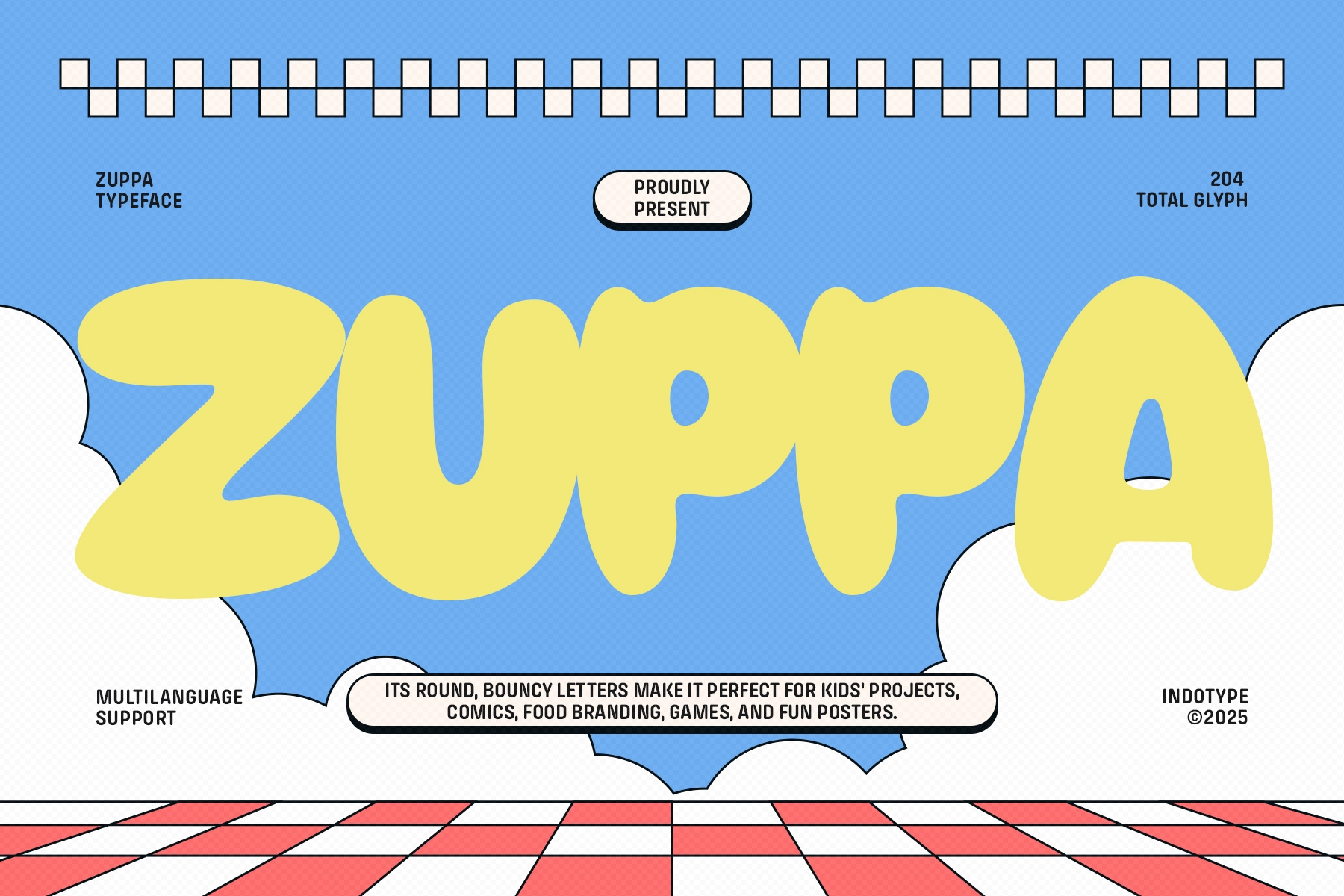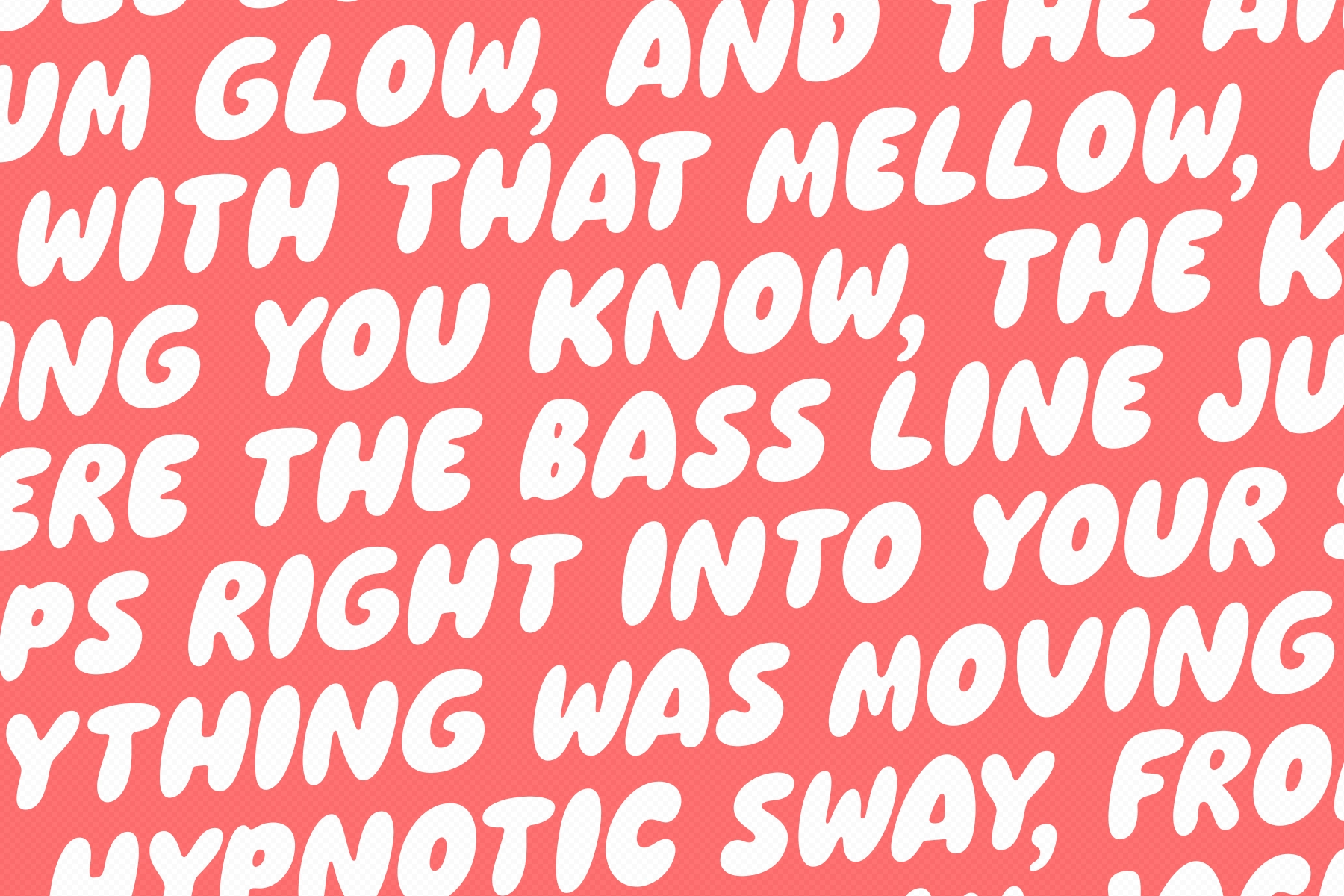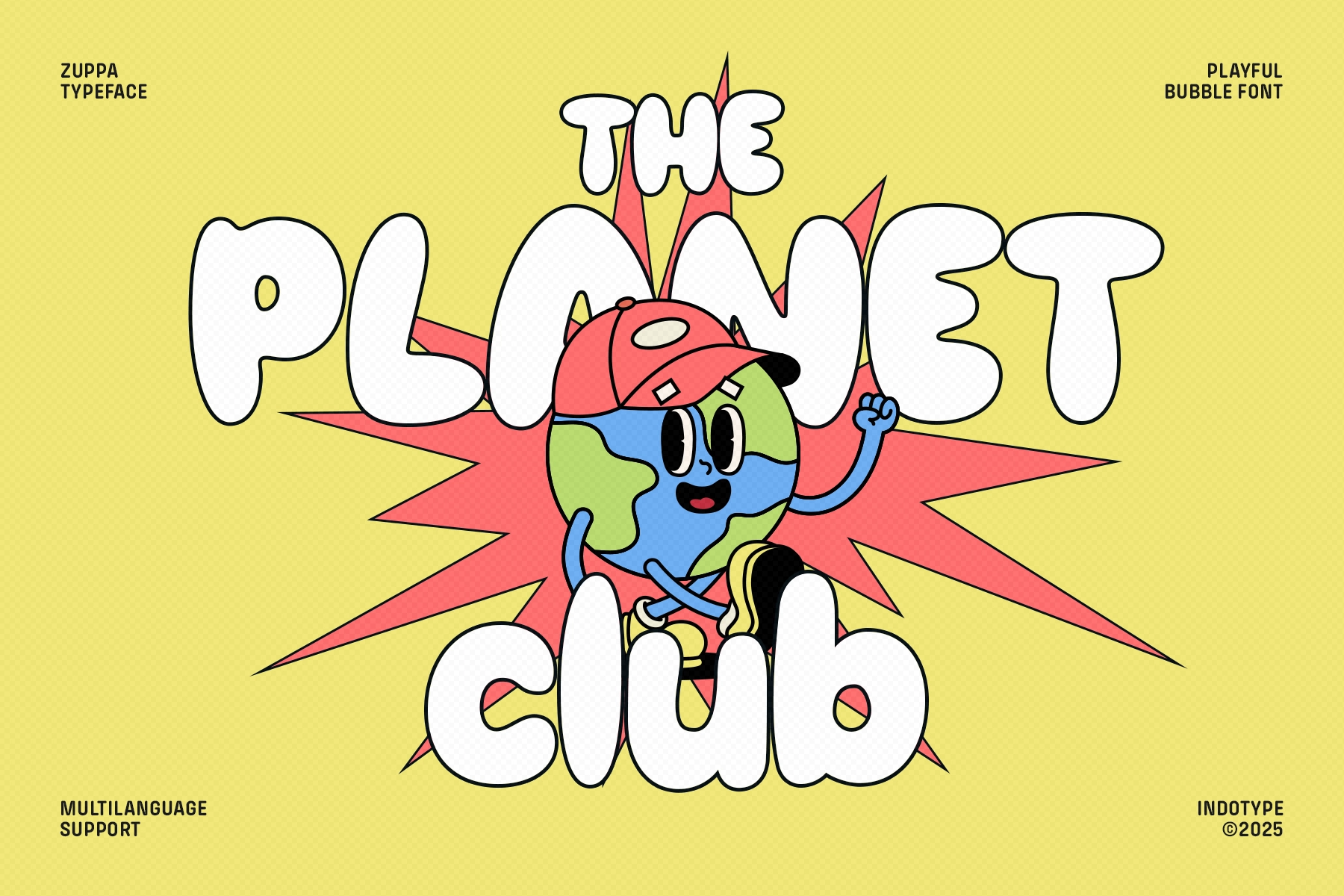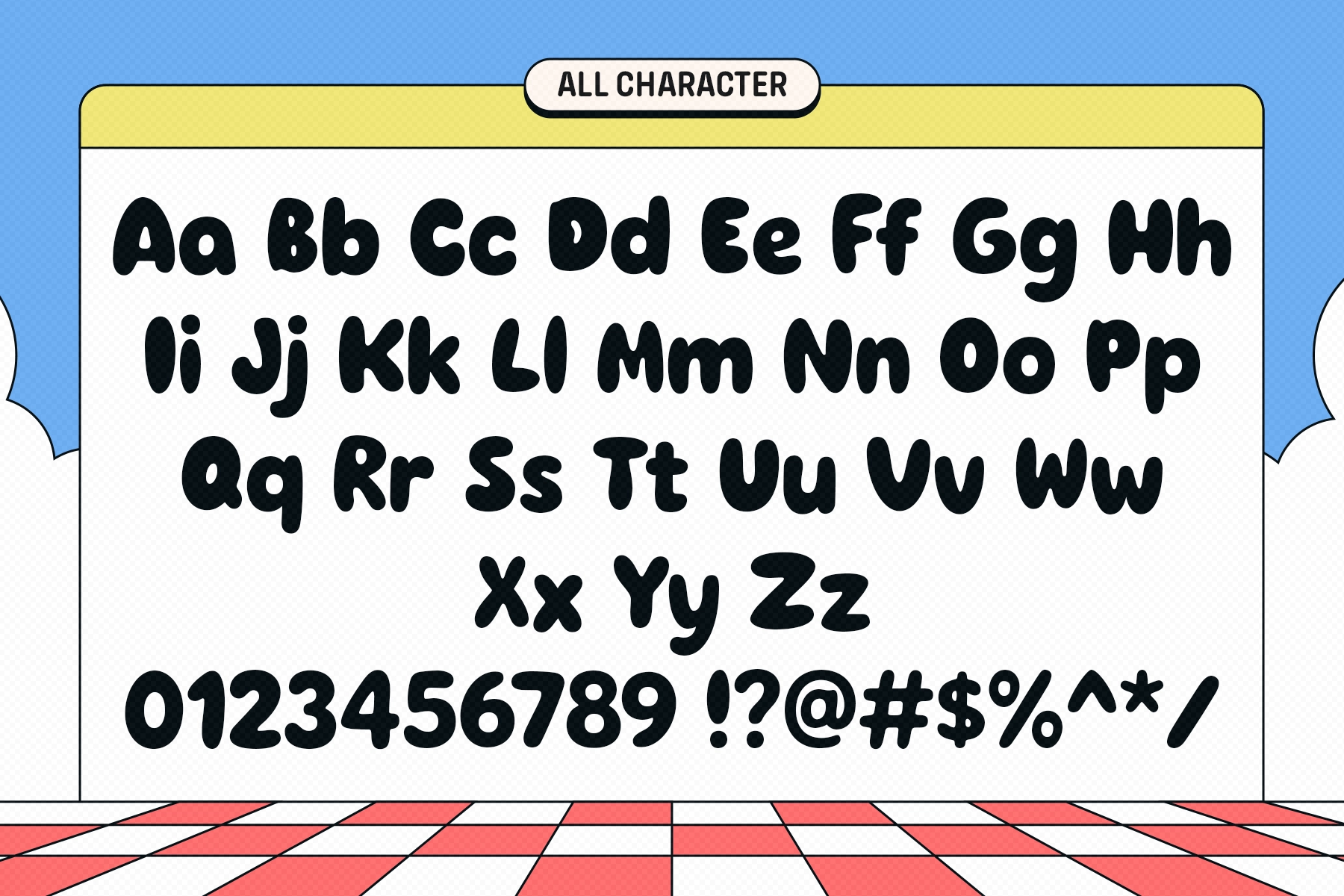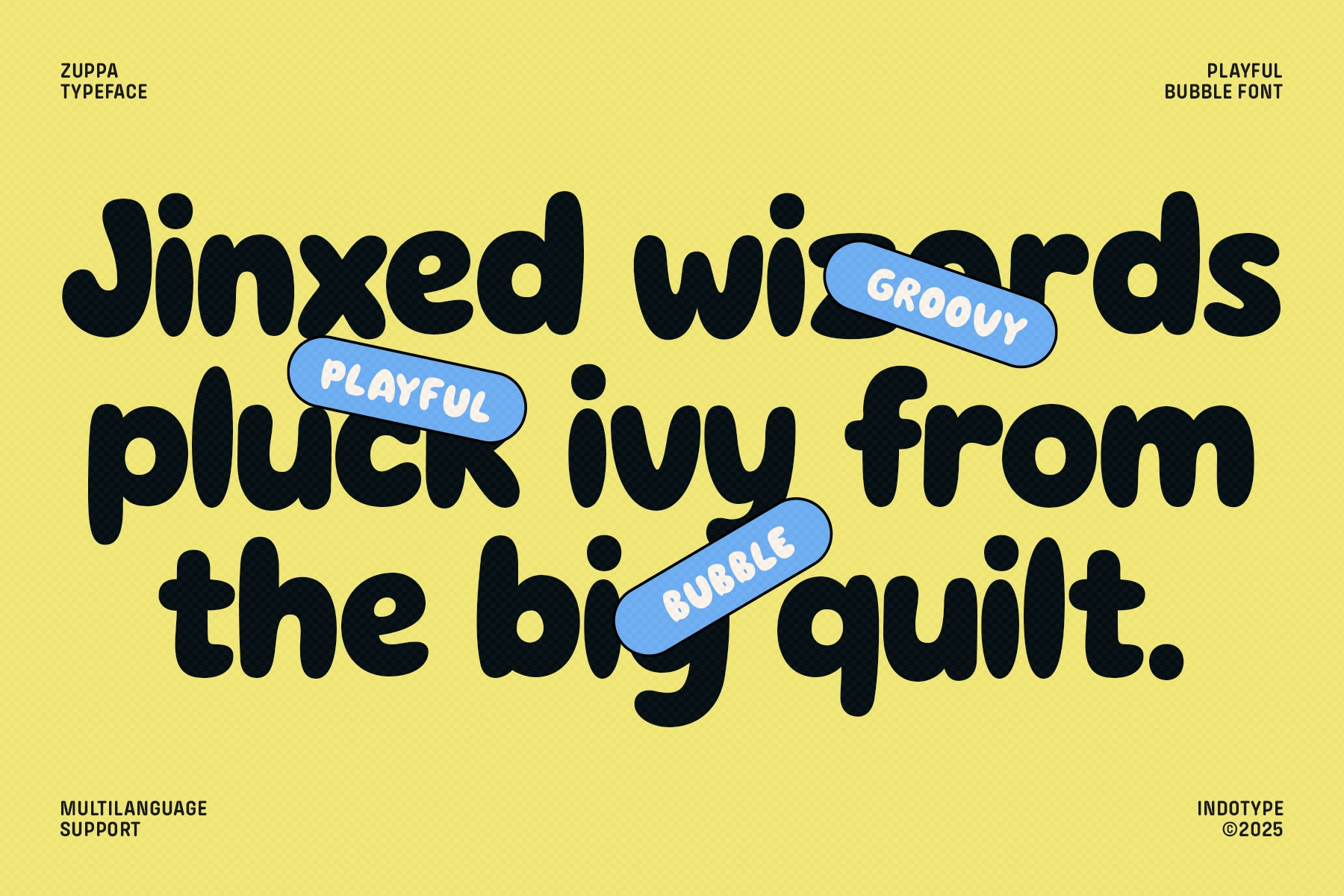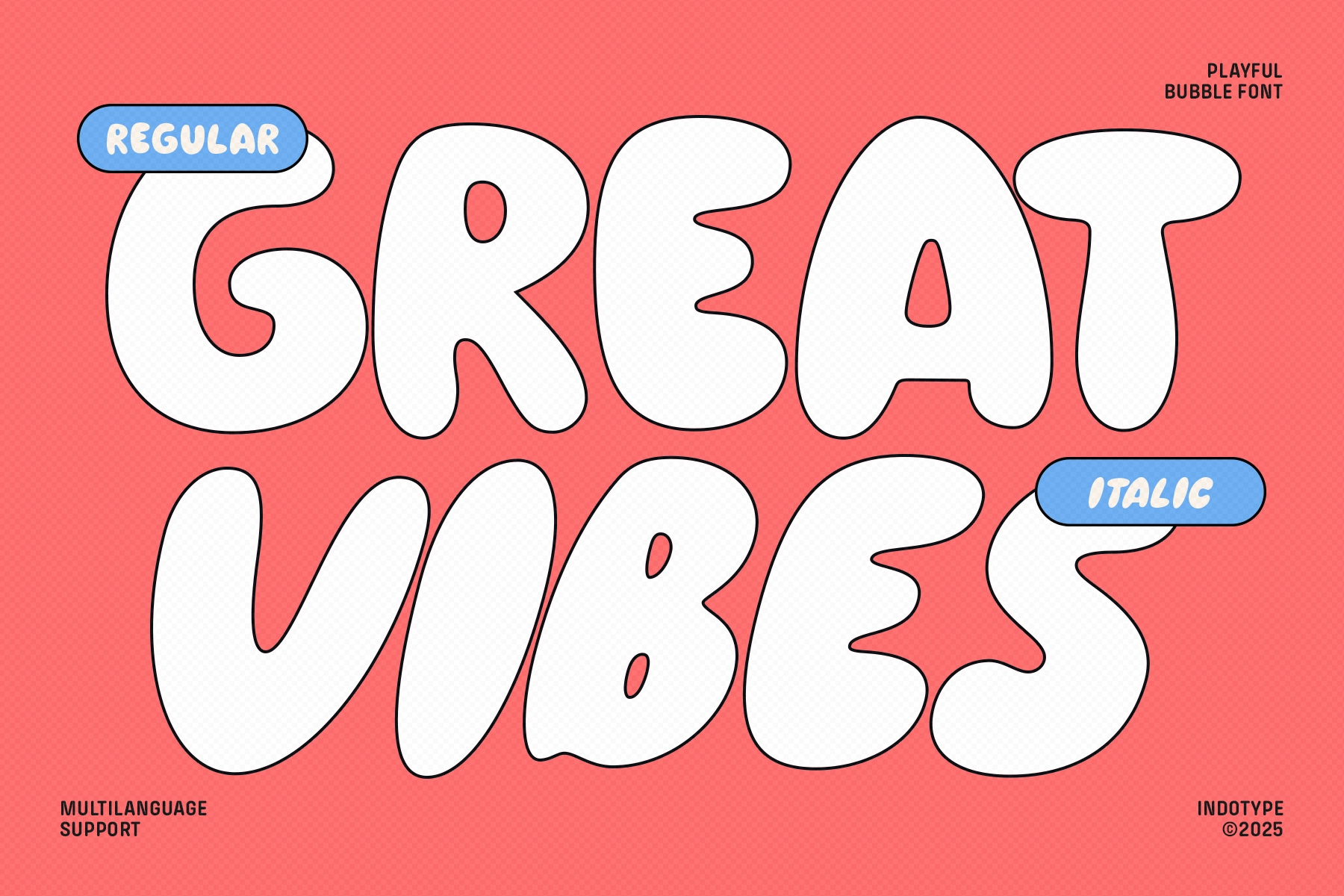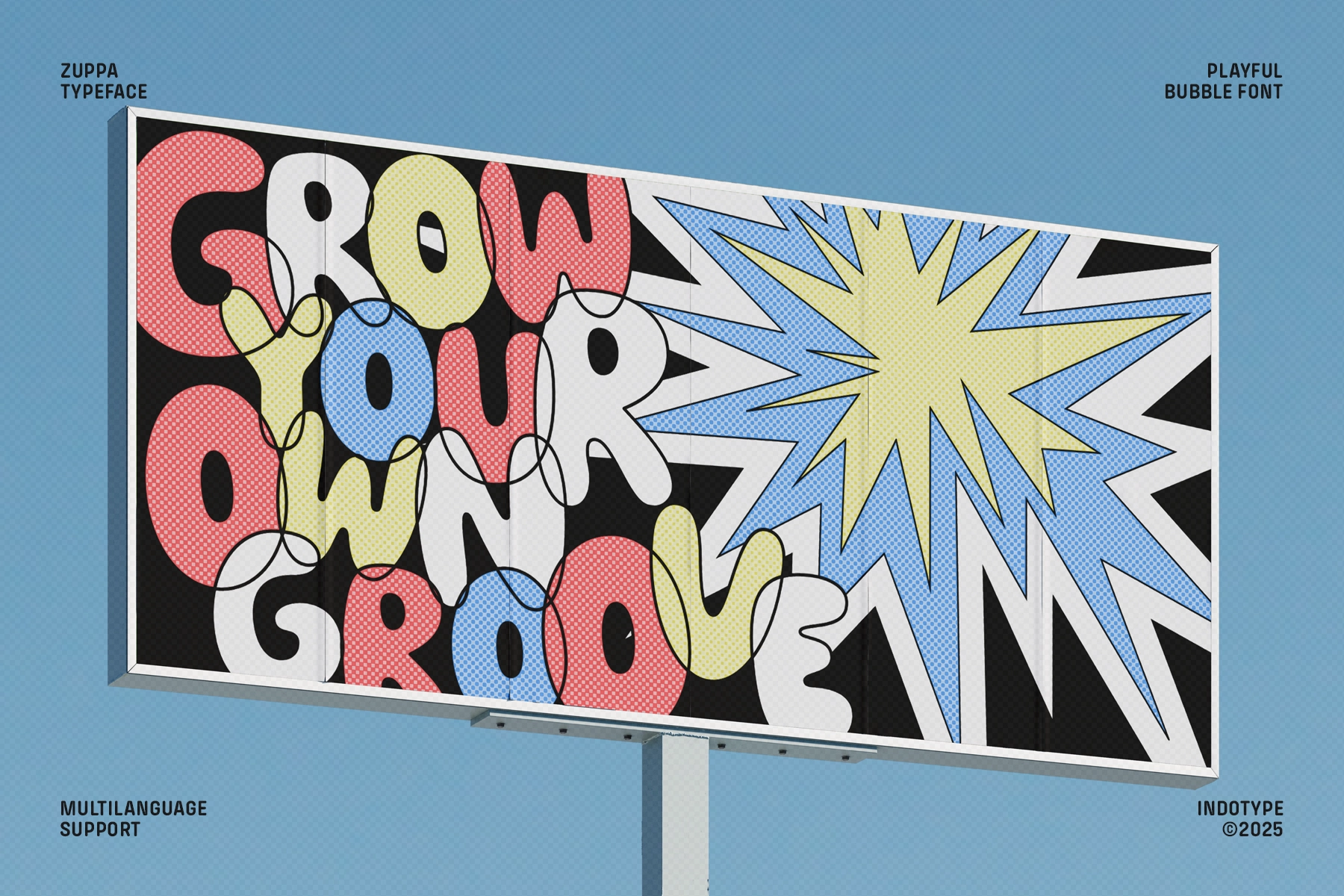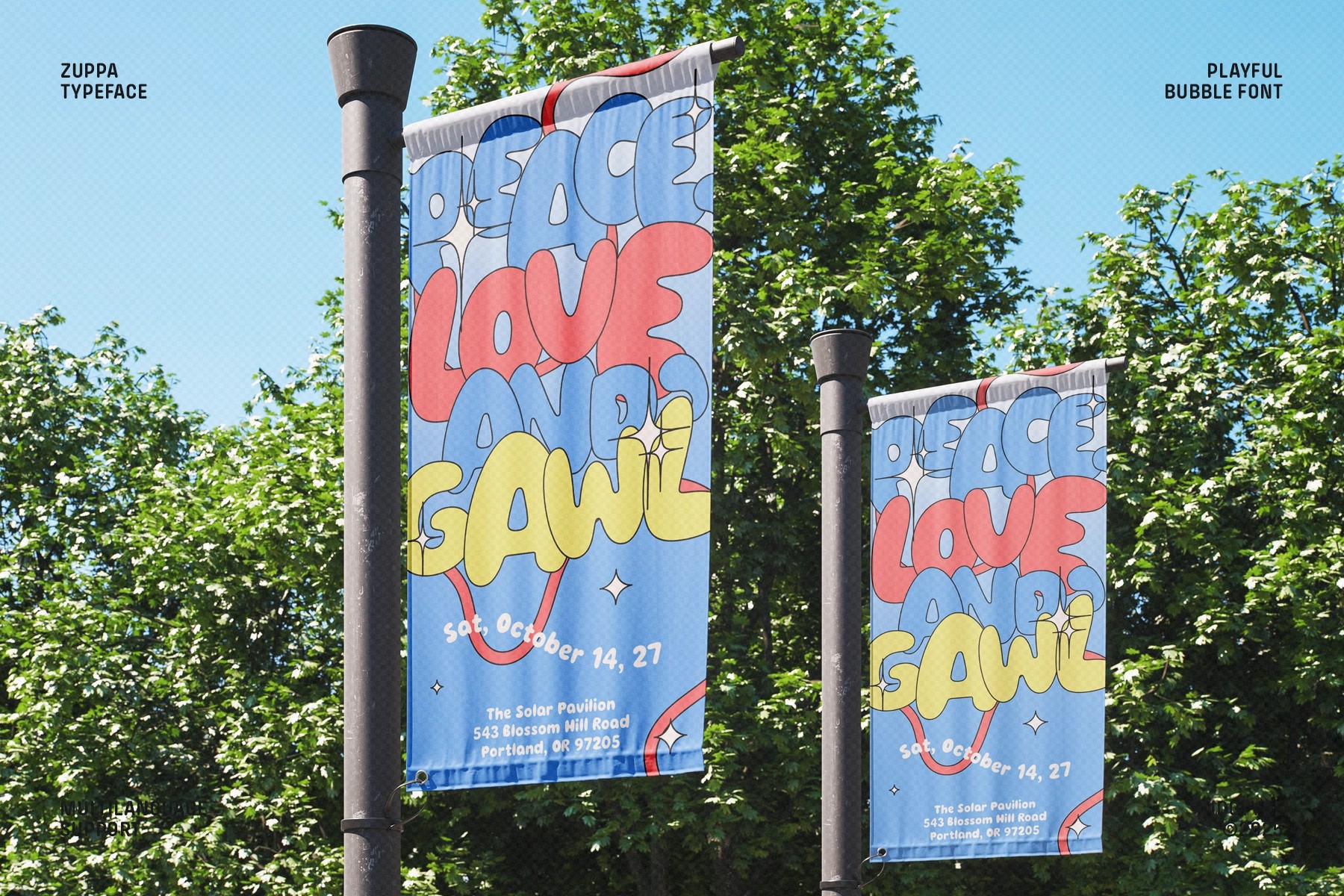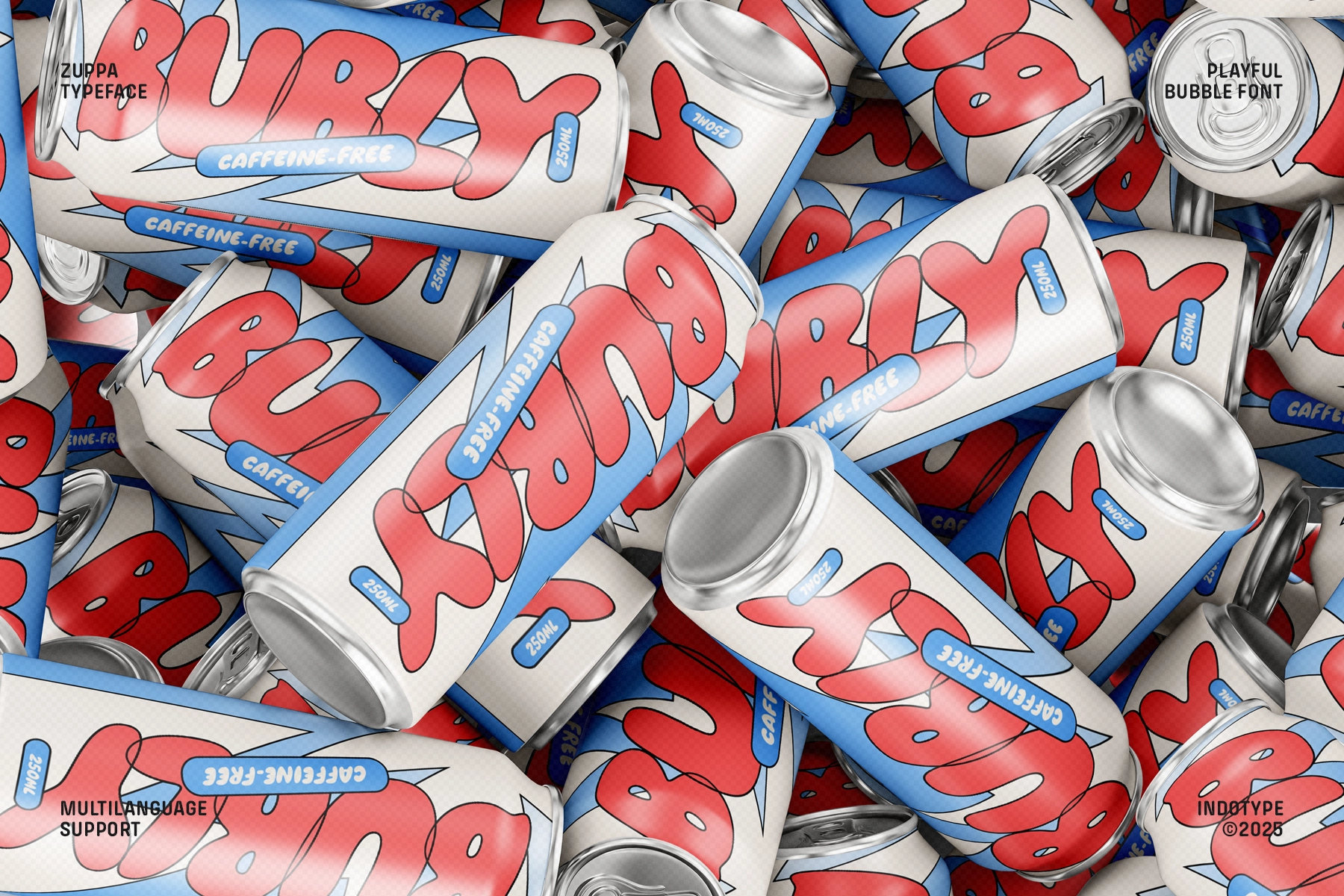
Zuppa - Playful Bubble Font
This bubble display font is packed with puffy shapes, soft curves, and cartoon-like weight that makes every word look cheerful and loud in the best way. Its rounded letters have a bouncy rhythm, with chunky forms that are easy to read and made for bright, kid-friendly graphics.
Zuppa works well for children’s books, comic covers, food branding, game interfaces, party invitations, school posters, toy packaging, sticker designs, social media graphics, playful logos, YouTube thumbnails, event flyers, mascot graphics, and more. It is a natural fit for projects that need sweet energy, friendly lettering, and a big grin baked into the type.
• 2 styles: Regular, Italic
• 204 total glyphs